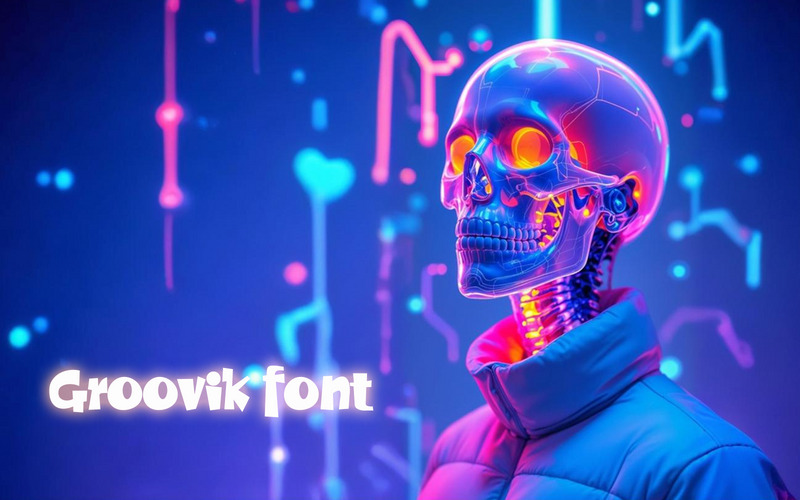
Get groovy with Groovik a font that dances, smiles, and never takes itself too seriously.
Packed with retro funk and cheerful charm, it's made for playful branding and happy vibes.
Perfect for kids, creatives, and cool brands with personality.
Every letter’s a celebration round, rhythmic, and totally rad.
Groovik: Because fun belongs in your font.